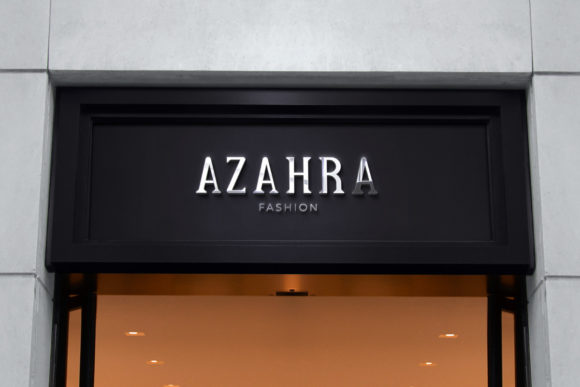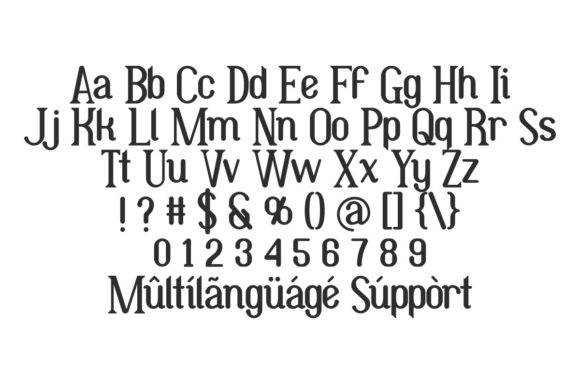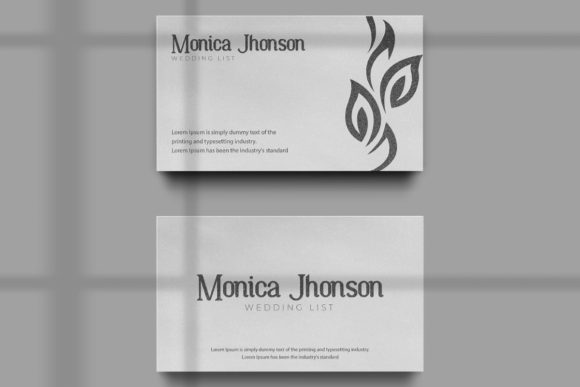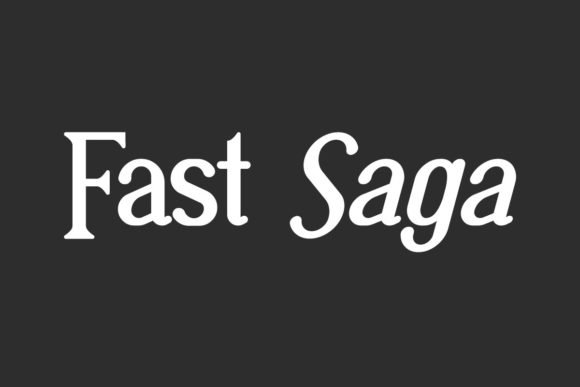
Introduction to Fast Saga Font
Fast Saga is a cool and casual serif font.
It is suitable for logotype, headline font, in corporate identity, brand identity, apparel industry, poster, music, movie, game, magazine, book, comic, cartoon, YouTube, Instagram, website, or any of your creative design projects .